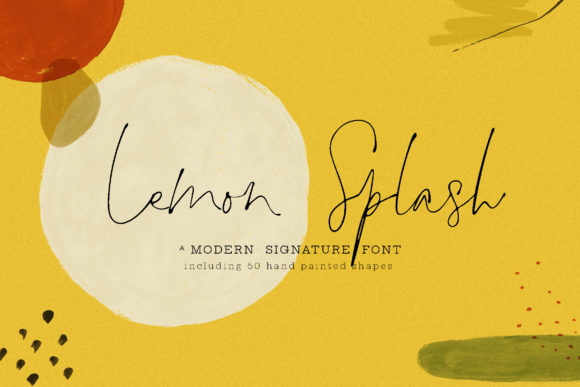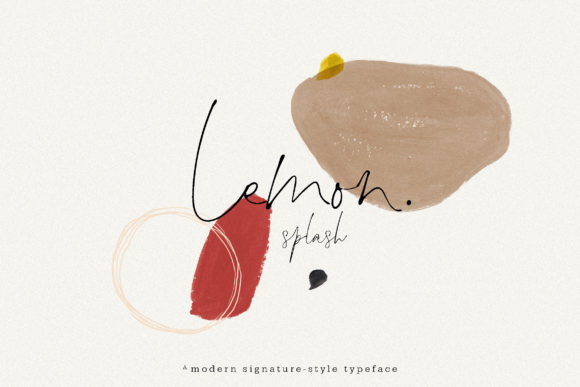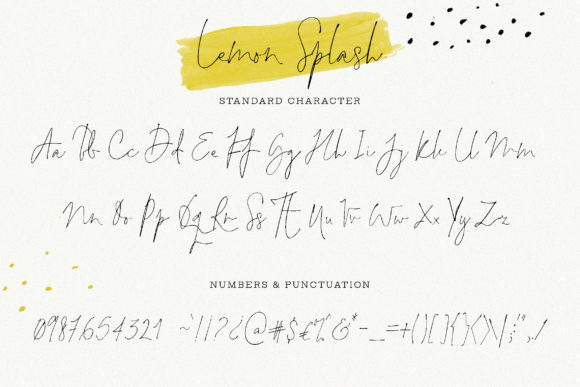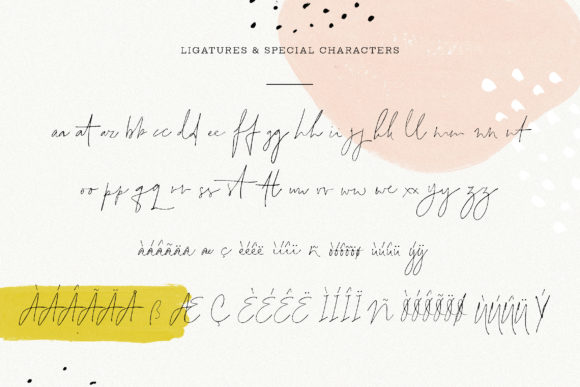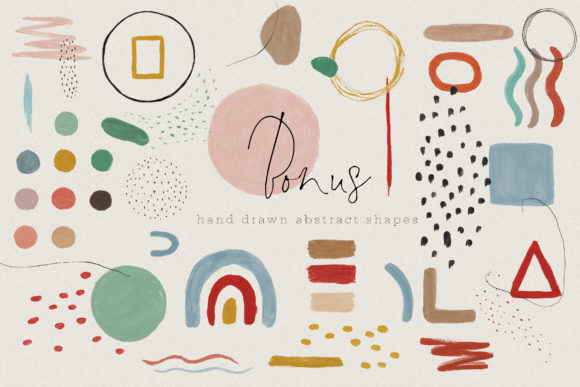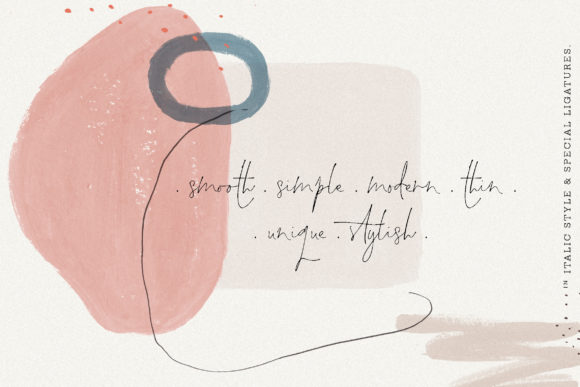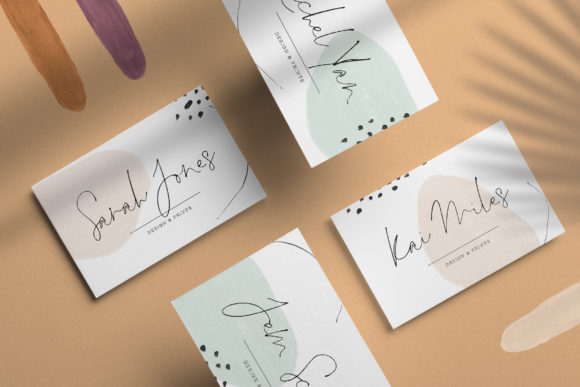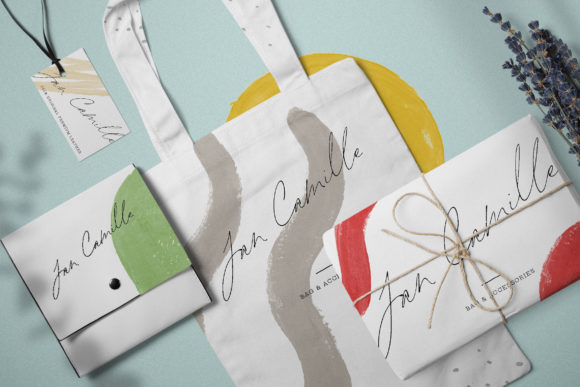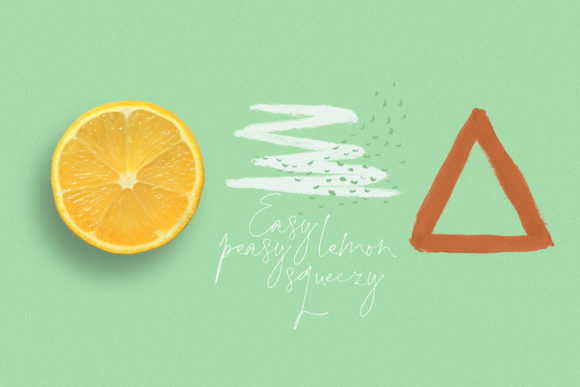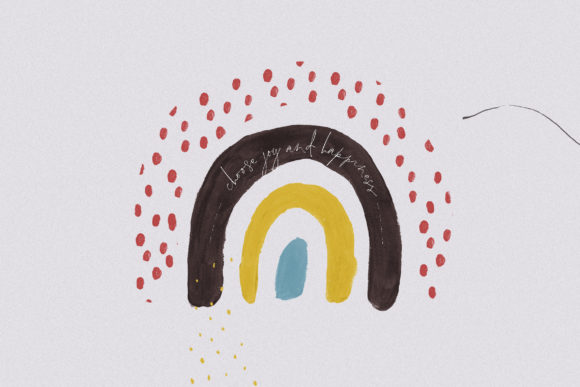
Lemon Splash Font
About Lemon Splash Font
Lemon Splash features a unique ligature effect that adds an extraordinary look to its letters. Get inspired by this beautiful script and the included extra shapes!